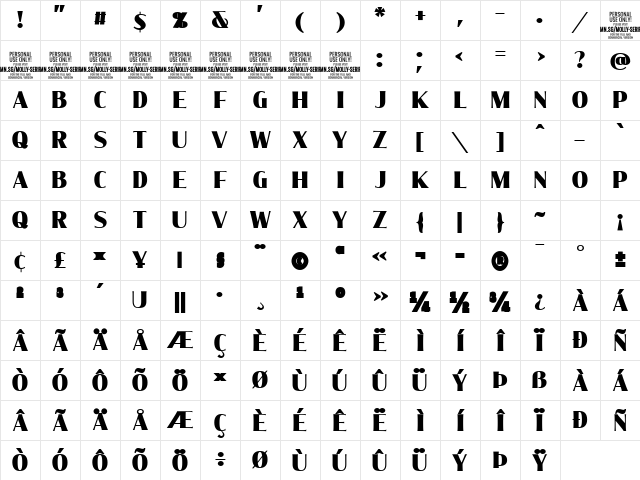
Molly Serif C PERSONAL carries the refined structure of traditional serif typography, with bracketed terminals and considered proportions that communicate credibility and craft.
Pro Tip: Use Molly Serif C PERSONAL for editorial body copy and considered headline work. Pair with a neutral sans for UI elements or captions to create a classic hierarchy.